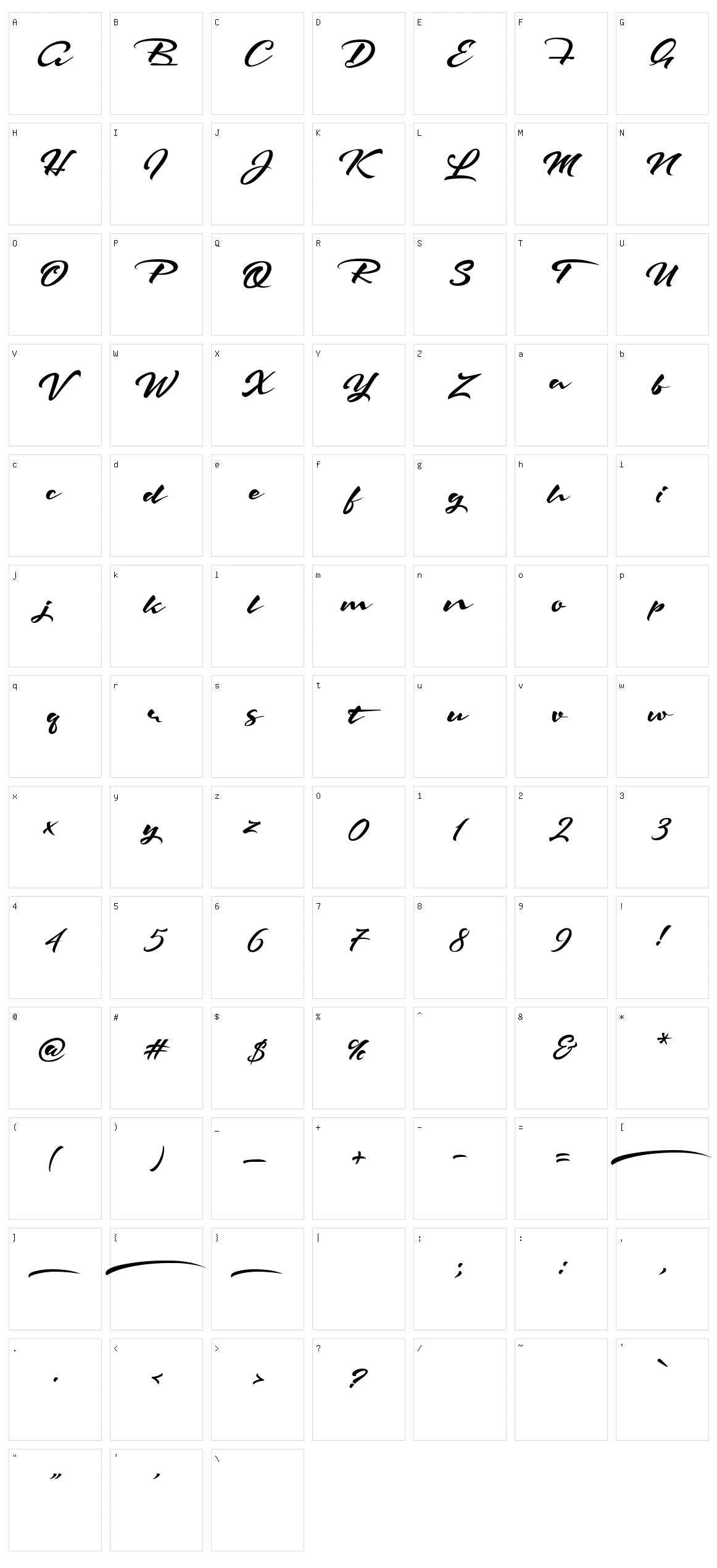
The free font The Rattnest is carefully designed by Typeline Studio, showcasing a thoughtful balance of creativity and usability and falls under the Script font style. When you download the ZIP file, it contains only 32.52 KB of font files, making it lightweight and quick to download. Please review the license details below to understand permitted usage and distribution rights. If license information is not available, we recommend using this font for personal projects only or contacting the author directly for commercial usage permissions.